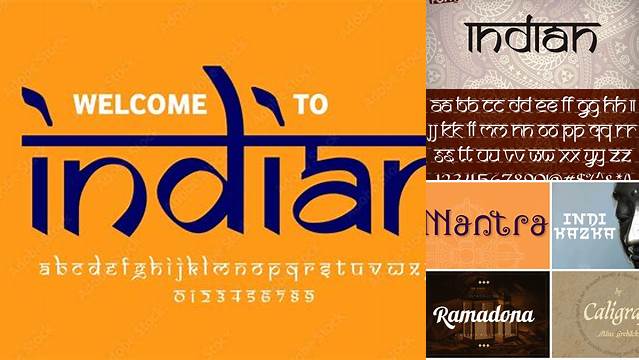
Free Indian Style Fonts: Your Guide To Typography
Introduction: Exploring the Richness of Indian Style Fonts
When it comes to Indian style fonts, you're diving into a world of rich history, culture, and artistic expression. These fonts, often inspired by traditional scripts like Devanagari, Tamil, or Bengali, carry a unique visual appeal that can add an authentic touch to your designs. Whether you're working on a wedding invitation, a cultural event poster, or a website celebrating Indian heritage, choosing the right font is crucial. In this guide, we'll explore the diverse landscape of free Indian style fonts, discuss their characteristics, and provide tips on how to use them effectively.
Indian style fonts, guys, aren't just about aesthetics; they're about conveying a specific mood and message. Imagine you're designing a poster for a Diwali celebration. A sleek, modern sans-serif might look out of place, right? Instead, you'd want a font that evokes the warmth, tradition, and festivity of the occasion. That's where these fonts come in. They can bring a touch of elegance and cultural relevance that other fonts simply can't match. But here's the thing: finding free and high-quality Indian style fonts can sometimes feel like searching for a needle in a haystack. The good news is, they do exist, and we're here to help you find them. We'll delve into the different categories of these fonts, highlighting their unique features and suggesting the best use cases for each. Think of it as your personal guide to navigating the world of Indian typography. So, buckle up, and let's get started on this journey of discovering the perfect free font for your next project! We'll explore everything from classic designs to modern interpretations, ensuring you have a comprehensive understanding of the options available.
Understanding the Diversity of Indian Script Fonts
Before we jump into specific font recommendations, it's important to understand the sheer diversity of Indian script fonts. India is a land of many languages, each with its own unique script and calligraphic traditions. This linguistic richness translates into a vast array of font styles, ranging from elegant and ornate to bold and contemporary. Devanagari, for example, is used for Hindi, Marathi, and Nepali, and is characterized by its distinctive horizontal line across the top of the letters. Tamil, on the other hand, boasts a rounded, flowing script, while Bengali features delicate curves and loops. Understanding these nuances is key to selecting a font that accurately reflects the cultural context of your project.
When you're choosing an Indian font, think about the message you're trying to convey. Are you aiming for a traditional, almost historical feel? Then you might want to consider fonts that closely mimic classical calligraphy. Or perhaps you're after a more modern, stylized look? In that case, you'll find plenty of fonts that blend traditional elements with contemporary design principles. Itβs also crucial to consider the readability of the font, especially if you're using it for body text. Some of the more ornate fonts, while beautiful, can be challenging to read in large blocks of text. Always test your font choice in different sizes and contexts to ensure it's both visually appealing and legible. Think of it like this: you wouldn't wear a pair of stilettos for a marathon, right? Similarly, you need to choose the right font for the job. And remember, the best font is the one that speaks to your audience, conveying your message clearly and effectively. So, take your time, explore the options, and don't be afraid to experiment! There's a whole world of typographic treasures waiting to be discovered. The key is to understand the nuances of each script and how they can contribute to the overall aesthetic and message of your design.
Finding the perfect free Indian style font is like discovering a hidden gem, guys! But, it requires a bit of digging and knowing where to look. Think of these websites as your treasure maps, leading you to the typographic gold you've been searching for. When you're browsing these sites, pay close attention to the font previews. See how the letters look in different sizes and weights. Does the font have all the characters you need for your language? Is it legible and visually appealing? It's also a good idea to download a few different fonts and test them out in your design software. You might be surprised at how different a font looks on your screen compared to the preview image. And remember, free doesn't always mean low quality. There are tons of talented designers out there who generously share their fonts with the world. The key is to be discerning and choose fonts that are well-crafted and suitable for your specific needs. So, grab your virtual shovel, and let's start digging for those typographic treasures! You'll be amazed at the variety and quality of free Indian style fonts available online. Just remember to always double-check the licensing terms to ensure you're using the fonts legally and ethically.
Top Free Indian Style Fonts: Recommendations and Use Cases
Let's dive into some specific free Indian style fonts that are worth considering for your projects. For Devanagari script, you might want to explore fonts like Poppins, a versatile sans-serif that works well for both headlines and body text. Siddhartha is another excellent option, offering a more traditional and elegant feel. If you're looking for Tamil fonts, Latha is a popular choice, known for its readability and clean design. Mukti Narrow is a great option for Bengali script, providing a modern and legible typeface. These are just a few examples, and the best font for your project will ultimately depend on your specific needs and aesthetic preferences.
Choosing the right font is like picking the perfect outfit for an occasion, guys! You want it to be stylish, comfortable, and appropriate for the event. So, let's break down some font recommendations and their best use cases. Imagine you're designing a website for a yoga studio. You'd want a font that's calming, elegant, and easy to read. Poppins, with its clean lines and modern feel, would be a great choice for headings, while Latha, with its smooth curves, could be used for body text. Now, let's say you're creating a wedding invitation. You'd probably want a more ornate and traditional font, something that reflects the richness and festivity of the occasion. Siddhartha, with its calligraphic flair, would be perfect for this. Or, if you're designing a poster for a cultural event, you might want to use a font that's bold and eye-catching, like Mukti Narrow. The key is to think about the overall tone and message of your design and choose a font that complements it. Don't be afraid to experiment with different fonts and combinations. Try pairing a traditional font with a modern one to create a unique and visually appealing contrast. And always remember to prioritize readability. A beautiful font is useless if your audience can't read it! So, take your time, explore the options, and have fun with it. Typography is an art form, and choosing the right font is a crucial step in creating a stunning and effective design.
Tips for Using Indian Style Fonts Effectively
Using Indian style fonts effectively requires more than just picking a beautiful typeface. You need to consider factors like readability, cultural context, and overall design harmony. Avoid using overly ornate fonts for large blocks of text, as they can be challenging to read. Instead, reserve them for headlines or short phrases. Pay attention to the kerning and leading (the spacing between letters and lines) to ensure optimal readability. And always consider the cultural implications of your font choice. Using a font that doesn't align with the cultural context of your project can be jarring or even offensive. For example, using a very modern font for a traditional religious event poster might not be the best choice.
Guys, using Indian style fonts effectively is like cooking a delicious meal β you need the right ingredients and a good recipe! So, let's talk about some essential tips to help you master the art of Indian typography. First off, readability is key. Remember, your message won't get across if people can't read it. So, avoid using overly decorative fonts for long paragraphs. Save those beauties for headlines and short bursts of text. Think of it like this: you wouldn't wear a sparkly gown to the gym, right? Similarly, you need to choose the right font for the job. Next up, let's talk about cultural context. Fonts, like languages, have their own cultural nuances. Using a font that clashes with the cultural setting of your project can be a major faux pas. Imagine using a super modern, futuristic font for a traditional wedding invitation β it just wouldn't feel right. So, do your research and choose a font that resonates with the cultural vibe you're aiming for. And finally, balance is everything. Don't go overboard with too many different fonts in one design. It can make your work look cluttered and confusing. Stick to a maximum of two or three fonts, and make sure they complement each other. Think of it like pairing wines with food β you want to find flavors that harmonize. So, there you have it β some essential tips for using Indian style fonts like a pro. Remember to prioritize readability, respect cultural context, and strive for balance. With a little practice and attention to detail, you'll be creating stunning designs that truly capture the essence of Indian culture and artistry.
So there you have it, guys! We've explored the vibrant world of free Indian style fonts, and I hope you're feeling inspired to dive in and start experimenting. Remember, typography is more than just choosing pretty letters β it's about conveying a message, evoking emotions, and celebrating cultural heritage. By understanding the nuances of Indian scripts and the principles of effective typography, you can create designs that are both visually stunning and culturally meaningful. Don't be afraid to try new things, mix and match fonts, and let your creativity flow. The possibilities are endless! And most importantly, have fun with it. Designing with Indian fonts is a journey of discovery, and you're sure to learn something new along the way. So, go forth and create, and let the beauty of Indian typography shine through your work!